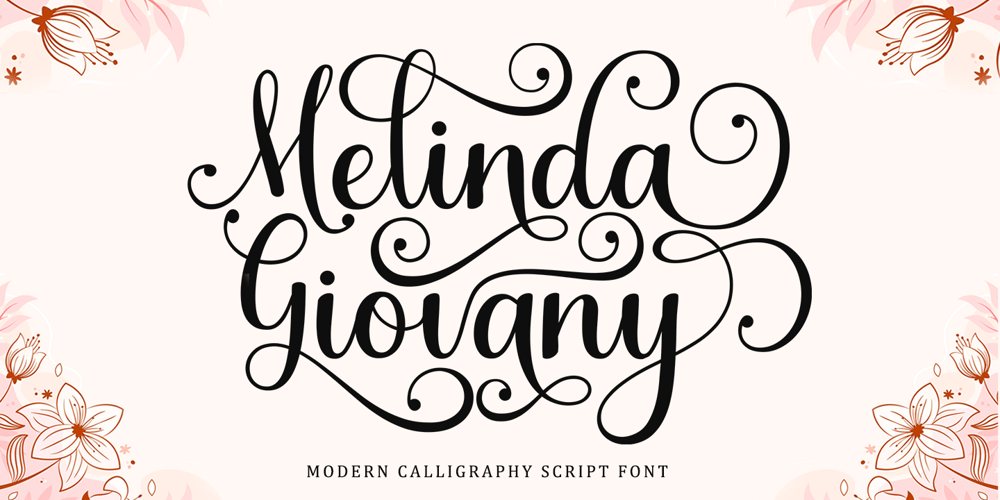
Melinda Giovany Font Family was designed by Muhibbus Sabri and published by Queenop Studio. Melinda Giovany contains 1 styles and family package options. Melinda Giovany is a very cute, elegant and unique handwritten font. Expertly designed to be a true favourite, this font has the potential to take any of your creative ideas to the highest level!This font is PUA encoded which means you can access all the glyphs and sweeps easily!Melinda Giovany is attractive because it is sleek, clean, feminine, sensual, glamorous, simple and very easy to read, thanks to its many luxurious letter connections. I also offer a decent number of style alternatives for all letters. The classic style is very suitable to be applied in various formal forms such as invitations, labels, restaurant menus, logos, fashion, make up, stationery, novels, magazines, books, greeting/wedding cards, packaging, labels or all kinds of advertising for your purposes. . . . . . .Contains full set:-Uppercase-Lowercase-Alternative-Ligatures-Punctuation-Number-Multilingual support.Need help or have questions let me know. I’m happy to help.Thanks & Congratulations on the Design.